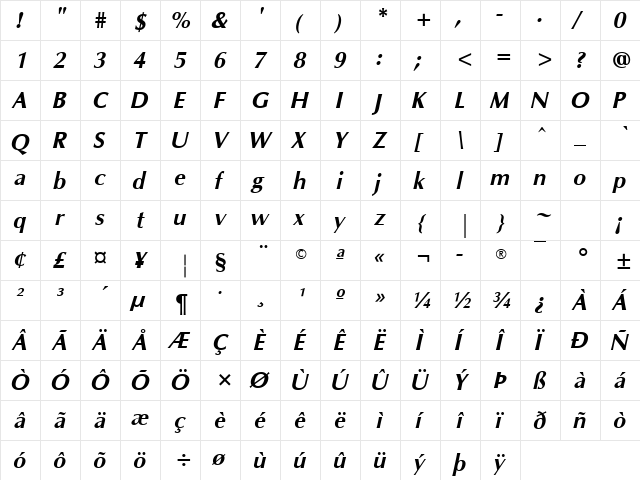
Oklahoma BoldOblique
Design Context for Oklahoma Typeface
Oklahoma takes a measured approach to typography — its balanced proportions and neutral character make it a reliable workhorse for both digital and print work. Its italic angle brings a sense of urgency and motion to the letterforms. The heavy weight commands attention and anchors typographic hierarchies.
Pro Tip: Use Oklahoma for emphasis, pull quotes, and subheadings where its slanted energy can add rhythm to the layout.